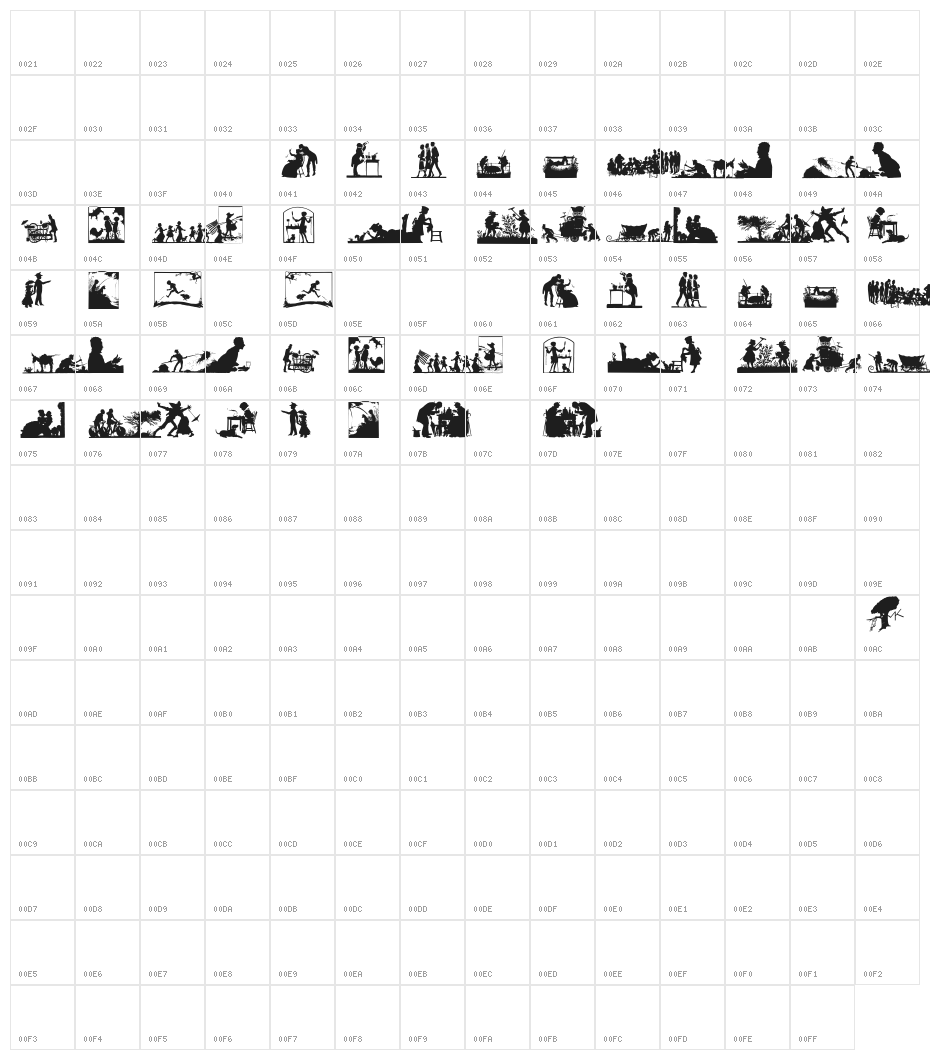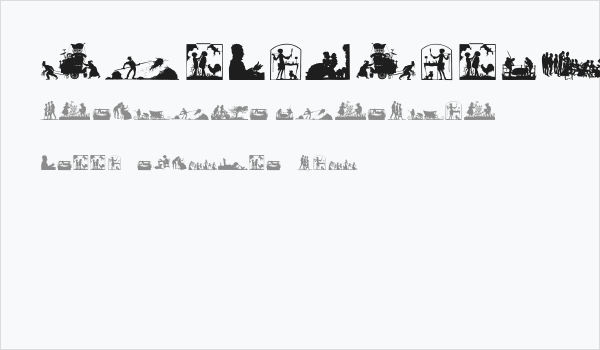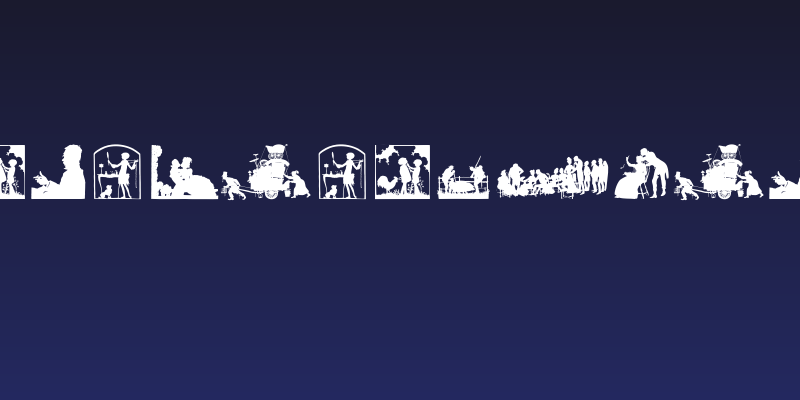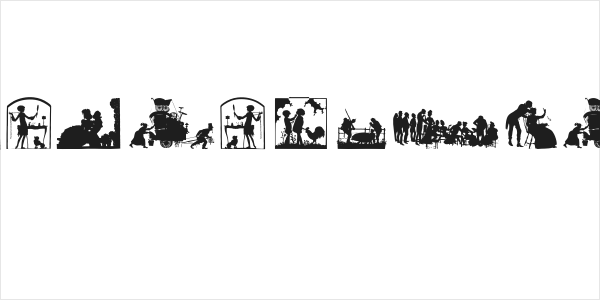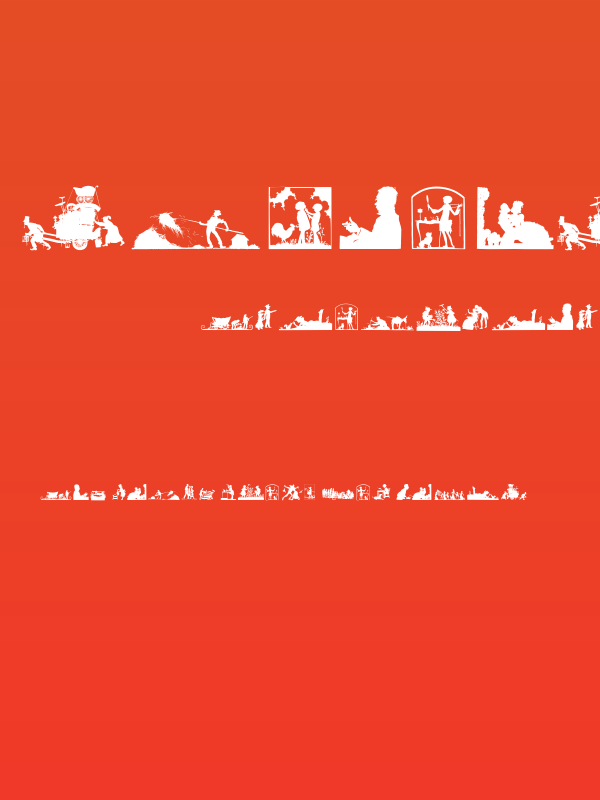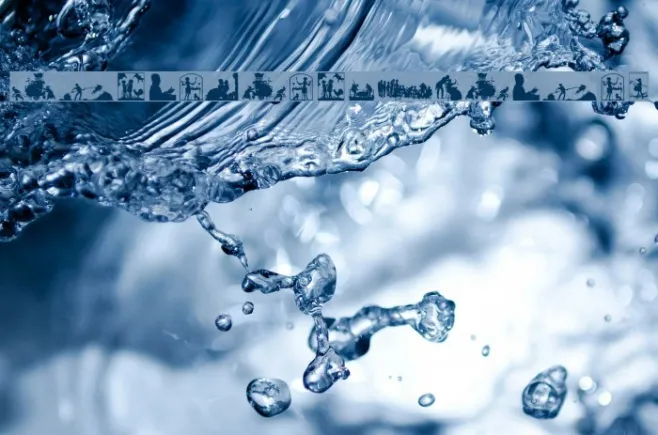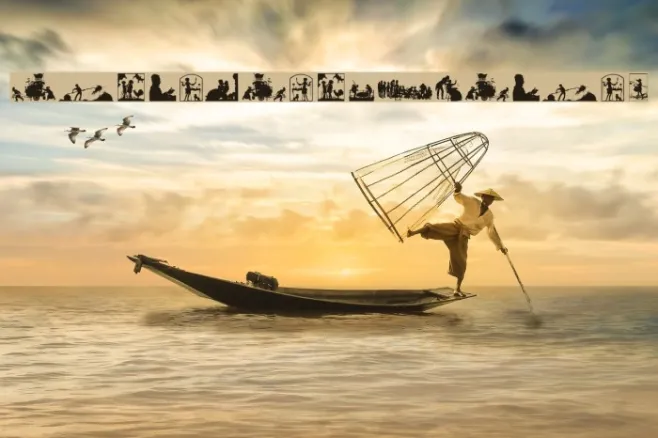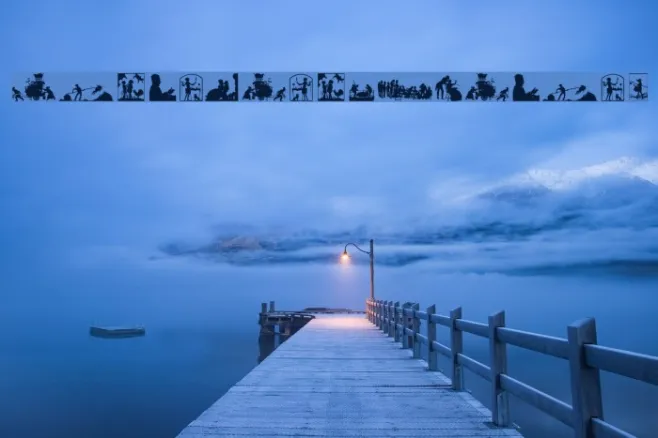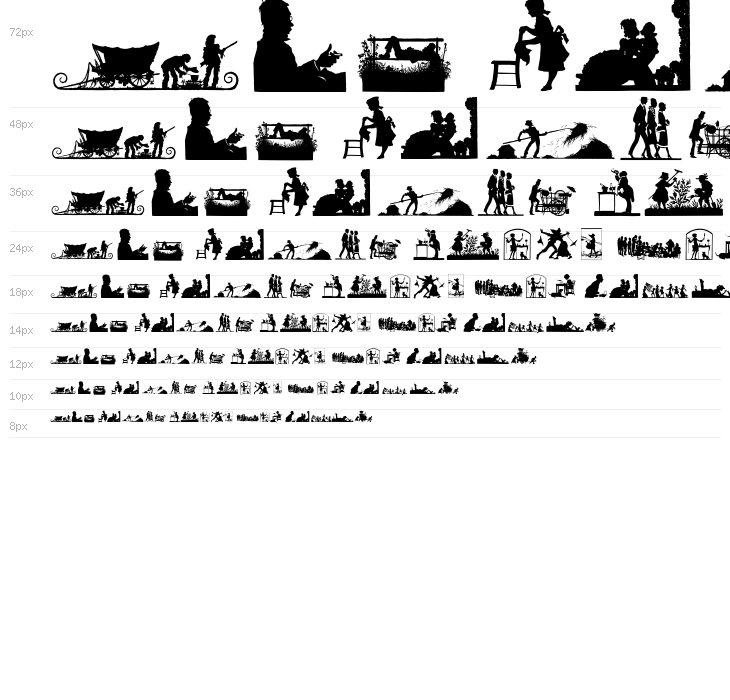
SilhousOldfashion Font
SilhousOldfashion Description
This decorative font features intricate silhouettes that depict various scenes and figures, reminiscent of old-fashioned illustrations. Each character is a unique silhouette, capturing moments of historical or whimsical significance. The style is highly detailed, with each silhouette telling its own story, making it ideal for projects that require a touch of nostalgia or a vintage aesthetic. The characters are not traditional letters but rather artistic representations, which can add a unique visual element to any design.
| Use Case | Logos, Decorative elements, Artistic projects |
| Proposed Projects | Ideal for vintage-themed posters, historical event invitations, or artistic projects that require a unique visual element. |